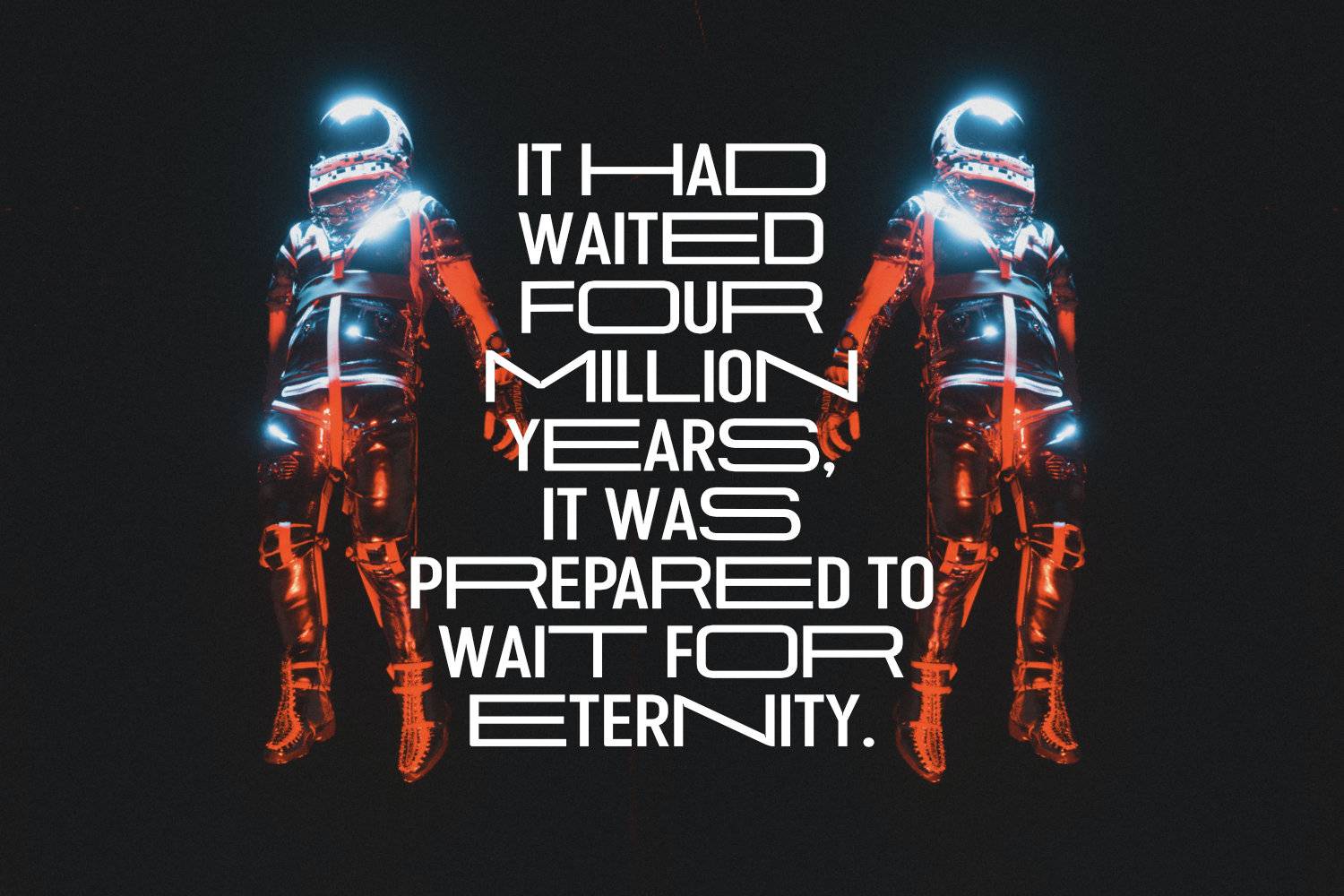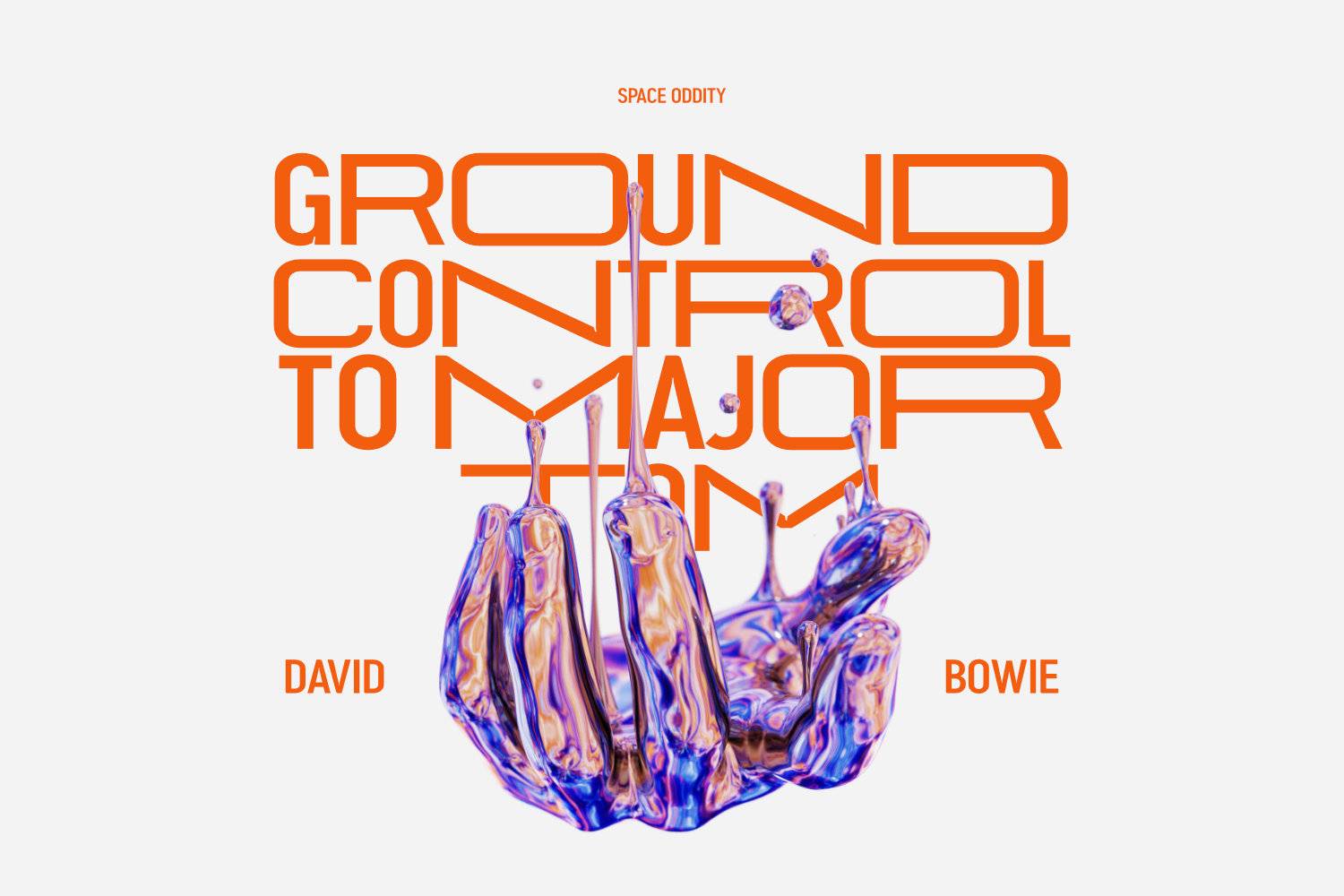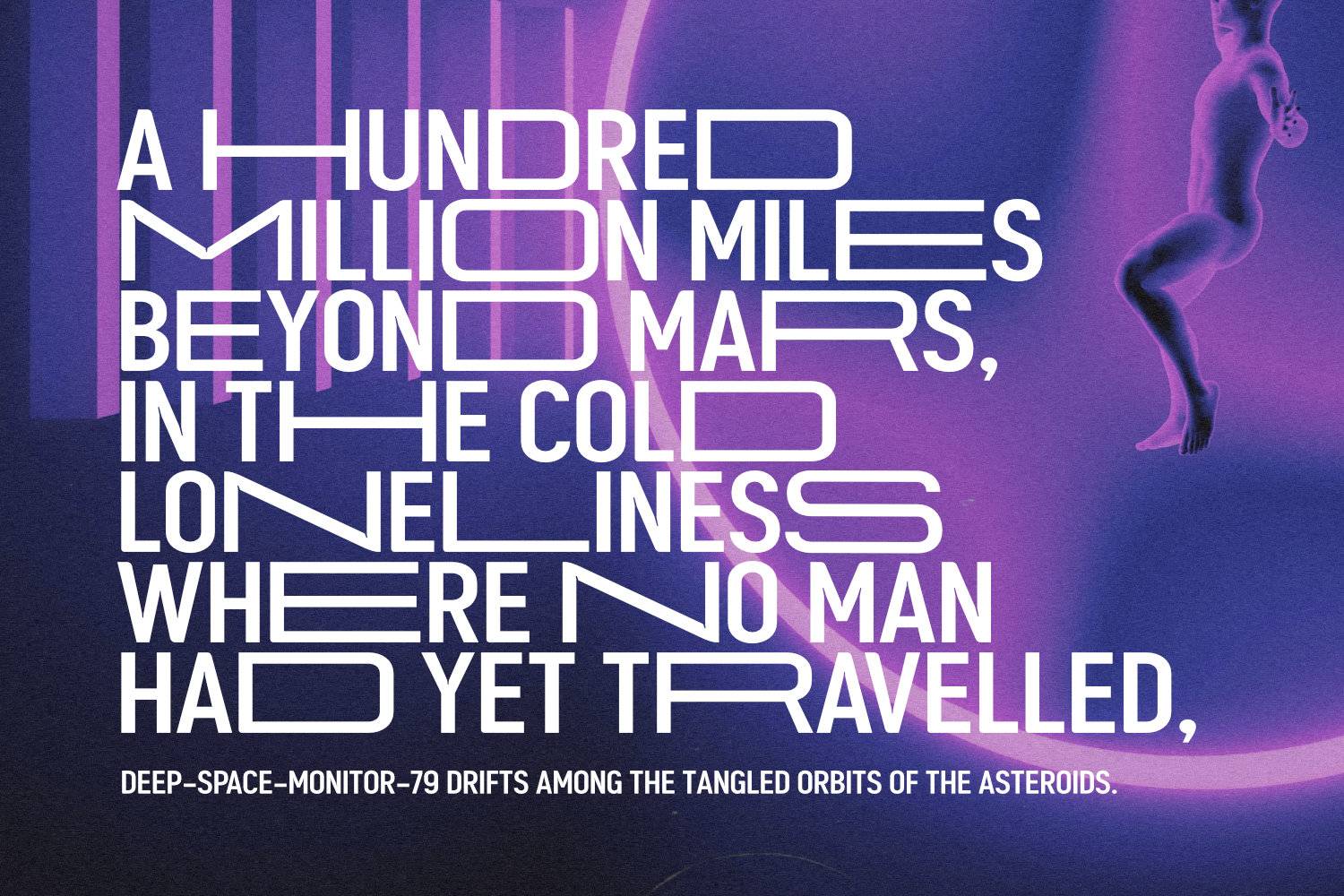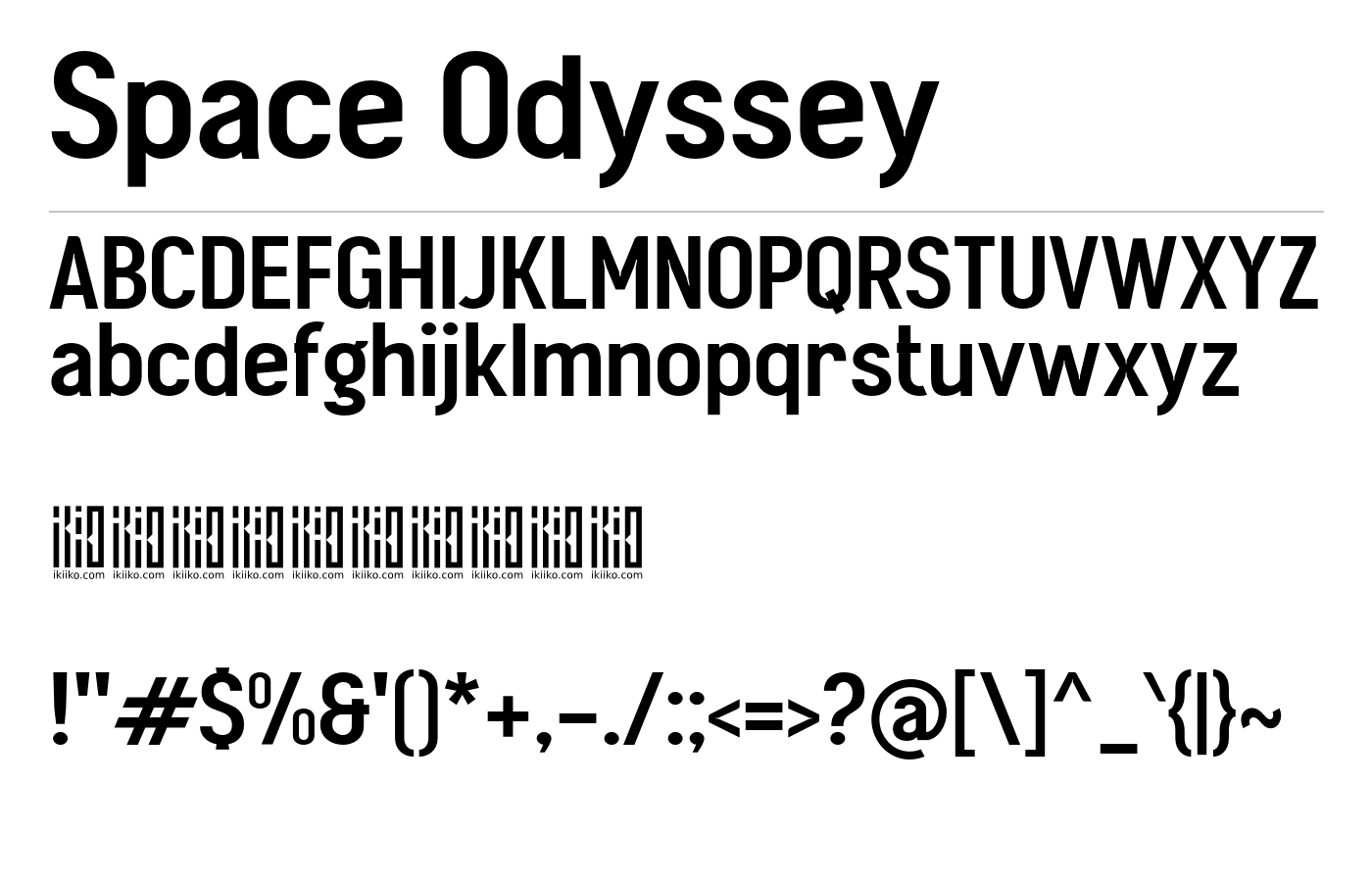
Space Odyssey is a bold, narrow sans serif font with a modern and geometric feel, characterized by its tall x-height and clean, consistent stroke width. Its straightforward, no-frills design gives it a futuristic and technical ambiance, ideal for tech-related branding, headlines, and editorial use where clarity and impact are key. This font works especially well in digital contexts and stylish print layouts aimed at conveying innovation and precision.
| Font family | Space Odyssey Font |
| Release date | 2022-02-18 |
| Designer | Wahyu Eka Prasetya, Andhika Pradana |